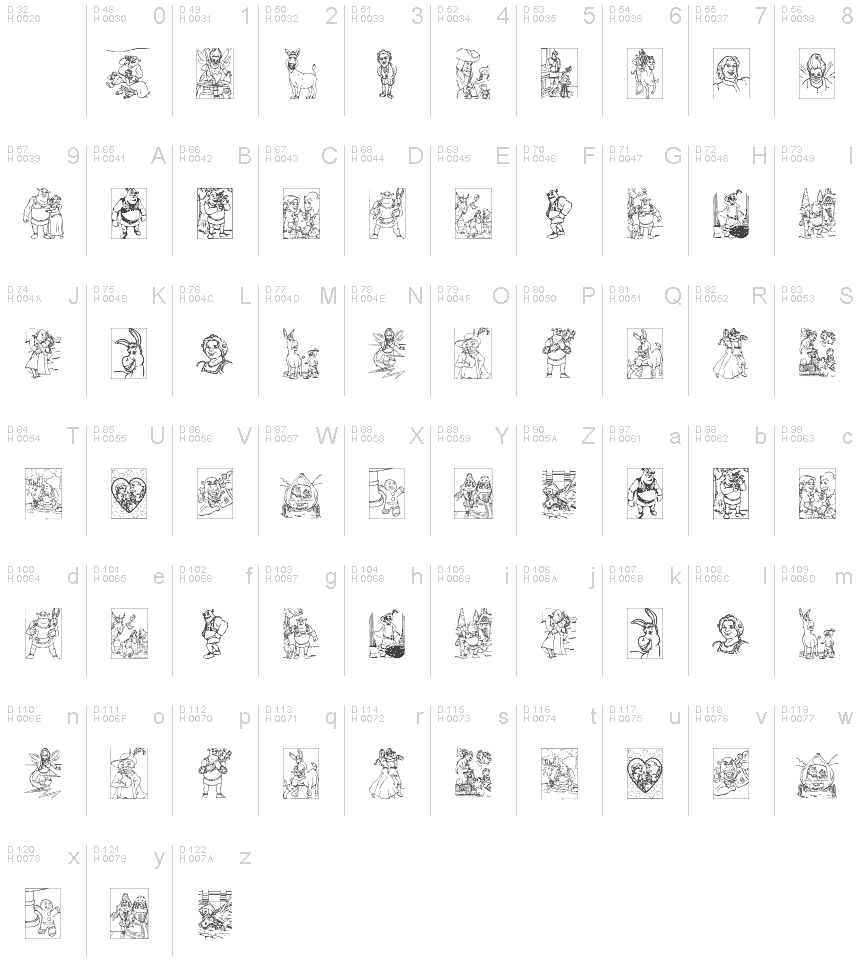
Shrek by DingBangMaster is a free cartoon character dingbat font built from lively pen-and-ink drawings. Its collection depicts ogres, animals, royals, and other fairy-tale figures in expressive poses. Fine outlines and varied interior details give each symbol the look of a small comic illustration.
Publishing is an especially apt setting, since the pictures can act as spot art in activity books and humorous features. They also suit party invitations, fan merchandise, and entertainment graphics centered on comic fantasy. Because the symbols already contain faces, costumes, and gestures, they can join decorative borders or illustrated scenes as active characters rather than ordinary type.